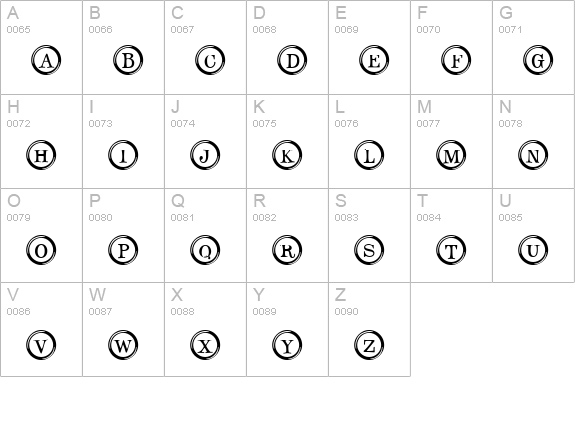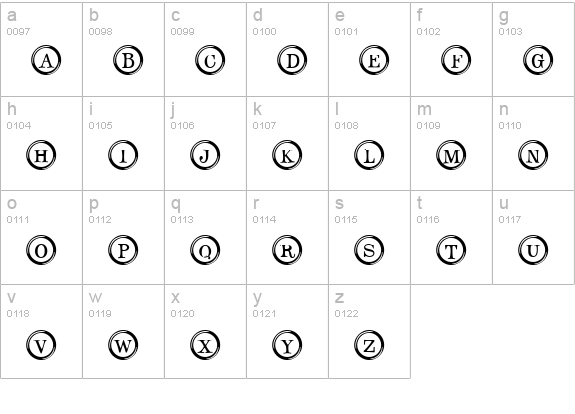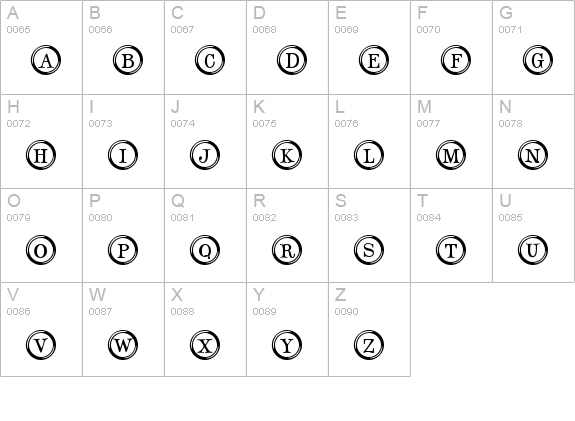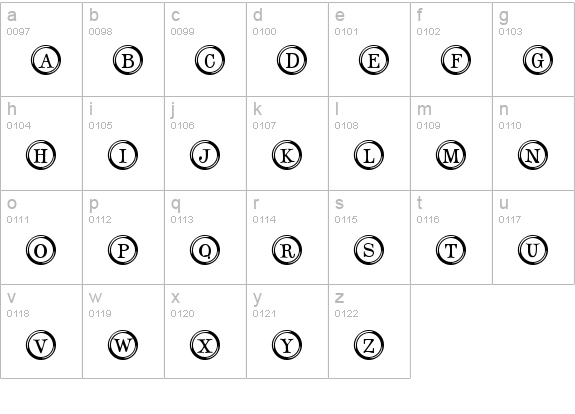
Type Keys Font Details
Type Keys is a stunning and versatile font that is sure to catch the eye of any typography enthusiast. With its clean lines and elegant curves, this font is perfect for a wide range of design projects, from branding to editorial layouts. What sets Type Keys apart is its unique blend of modern and classic elements. The letters are beautifully crafted with a contemporary twist, making them stand out in any composition. The font also features a generous x-height, ensuring readability across different sizes and mediums. But what makes Type Keys even more remarkable is the fact that it is free. Yes, you read that right! This exceptional font is freely available to download at FontsMarket.com. Now you can add a touch of sophistication to your designs without breaking the bank. Whether you are a professional designer or just starting out, Type Keys will become your go-to font. Its versatility allows it to be used in a variety of projects, from logos and headlines to body text and invitations. The possibilities are endless with Type Keys. So why wait? Don't miss out on this incredible opportunity to enhance your design toolkit. Download Type Keys today from FontsMarket.com and experience the beauty and freedom that this font brings to your creative projects.